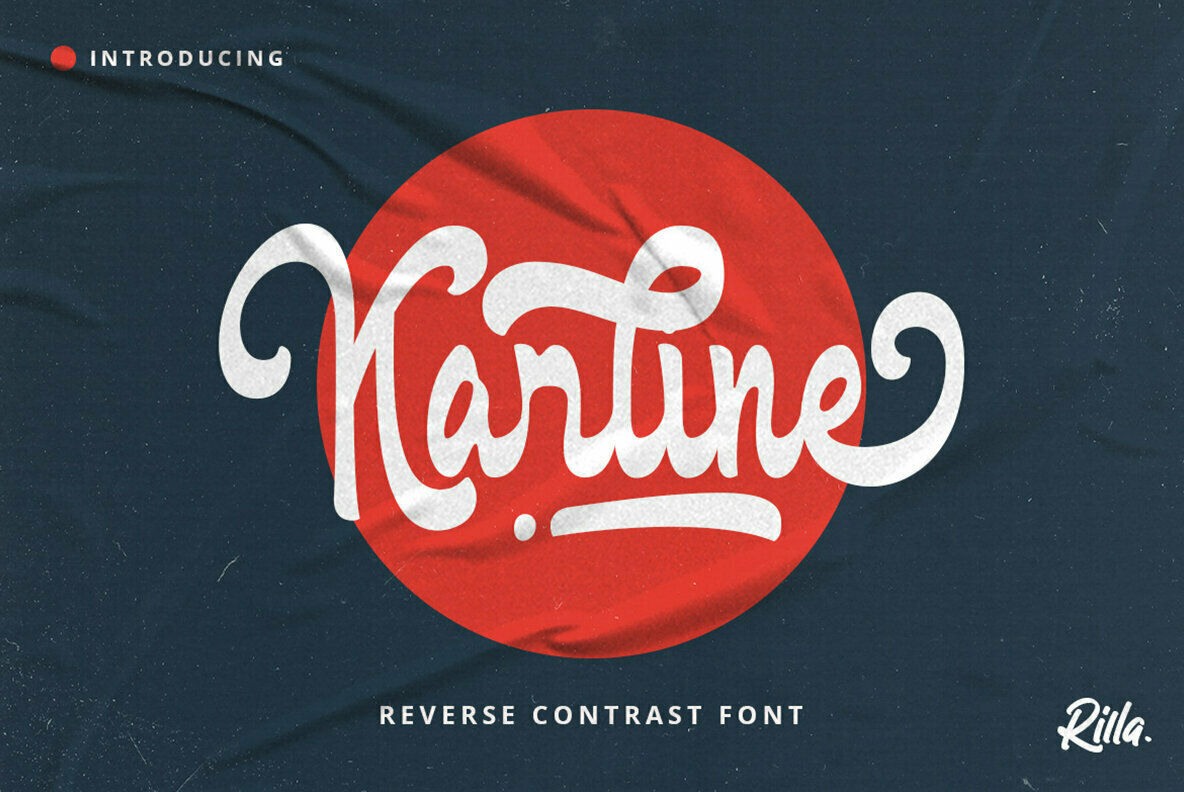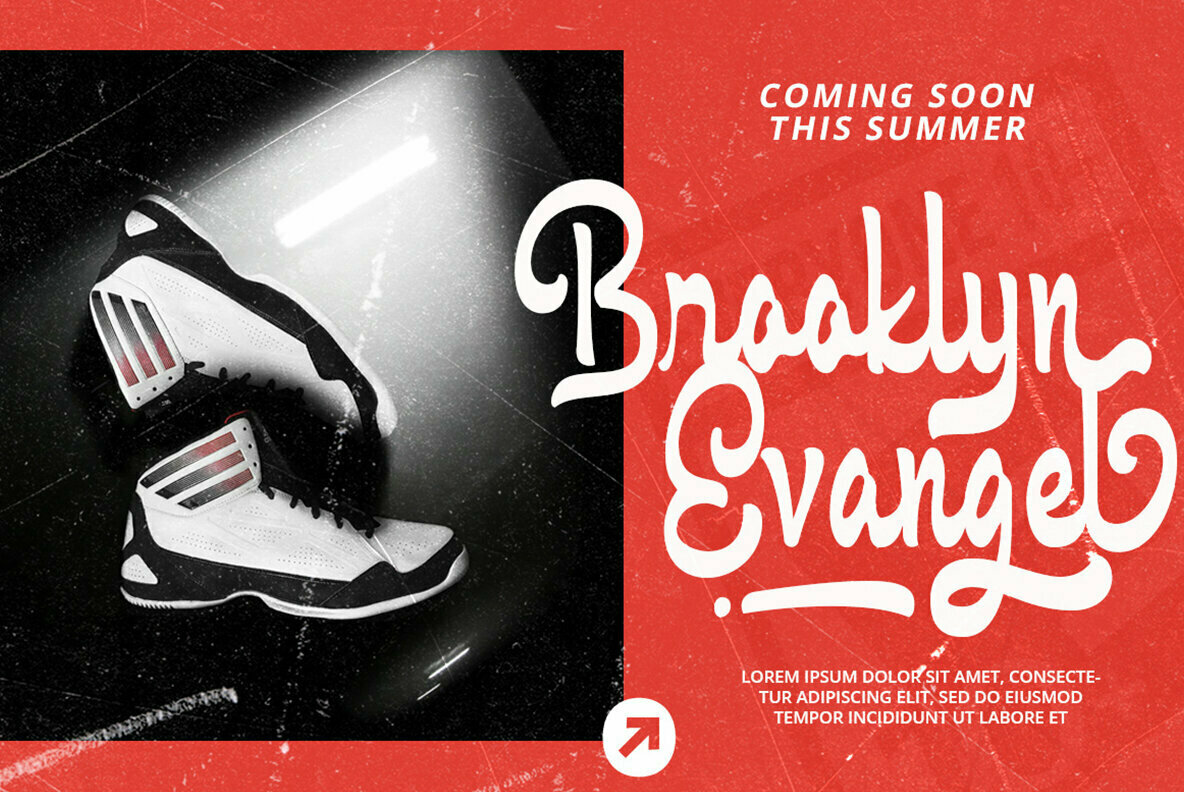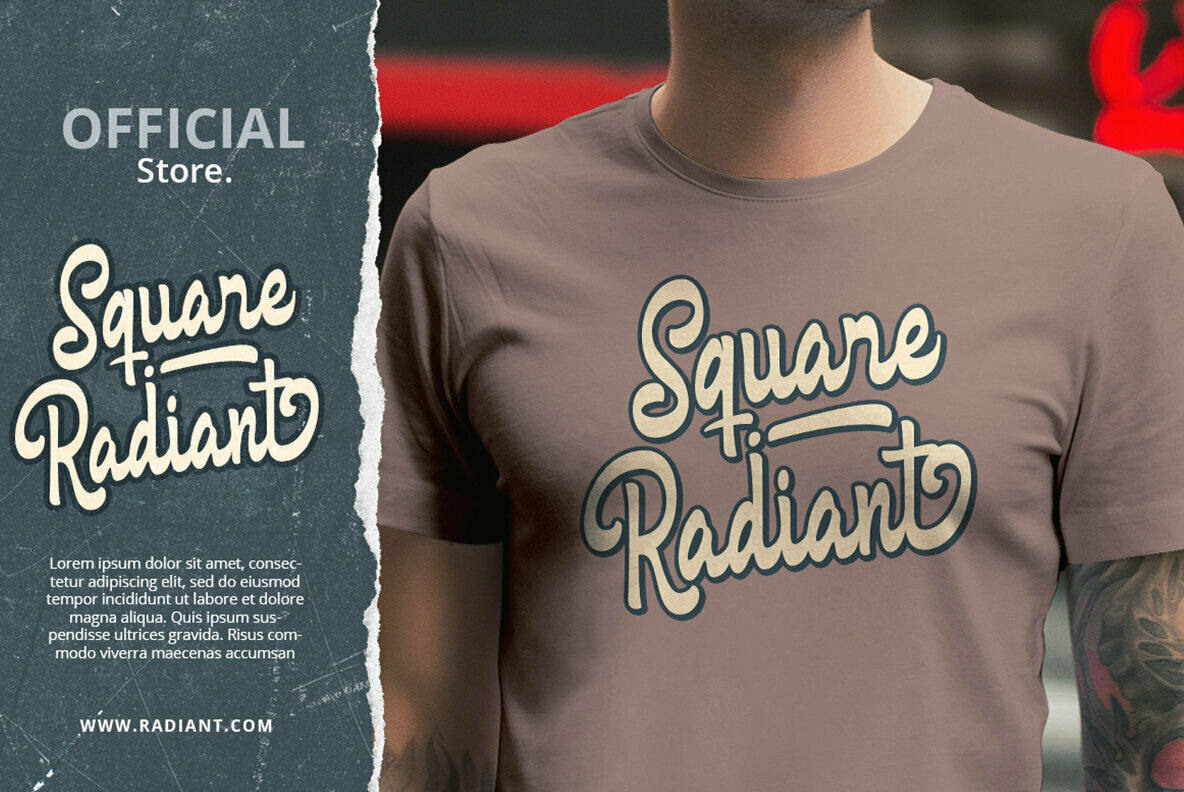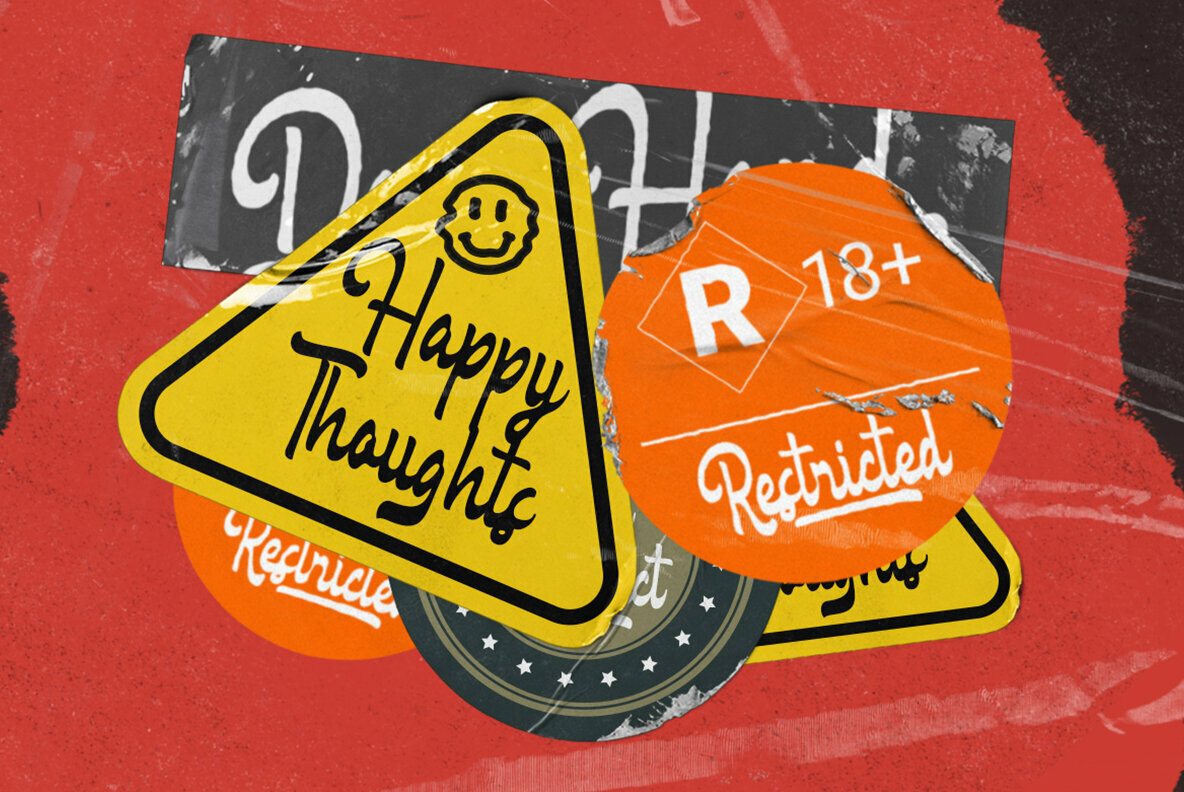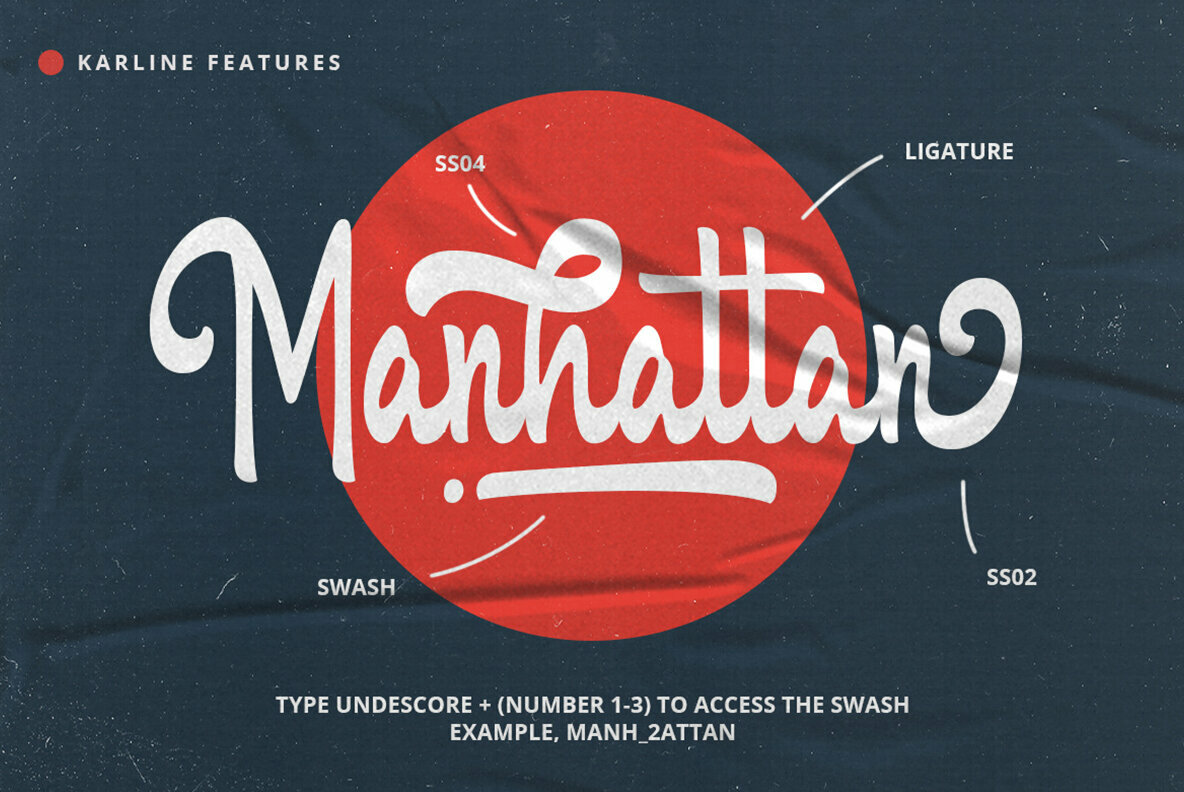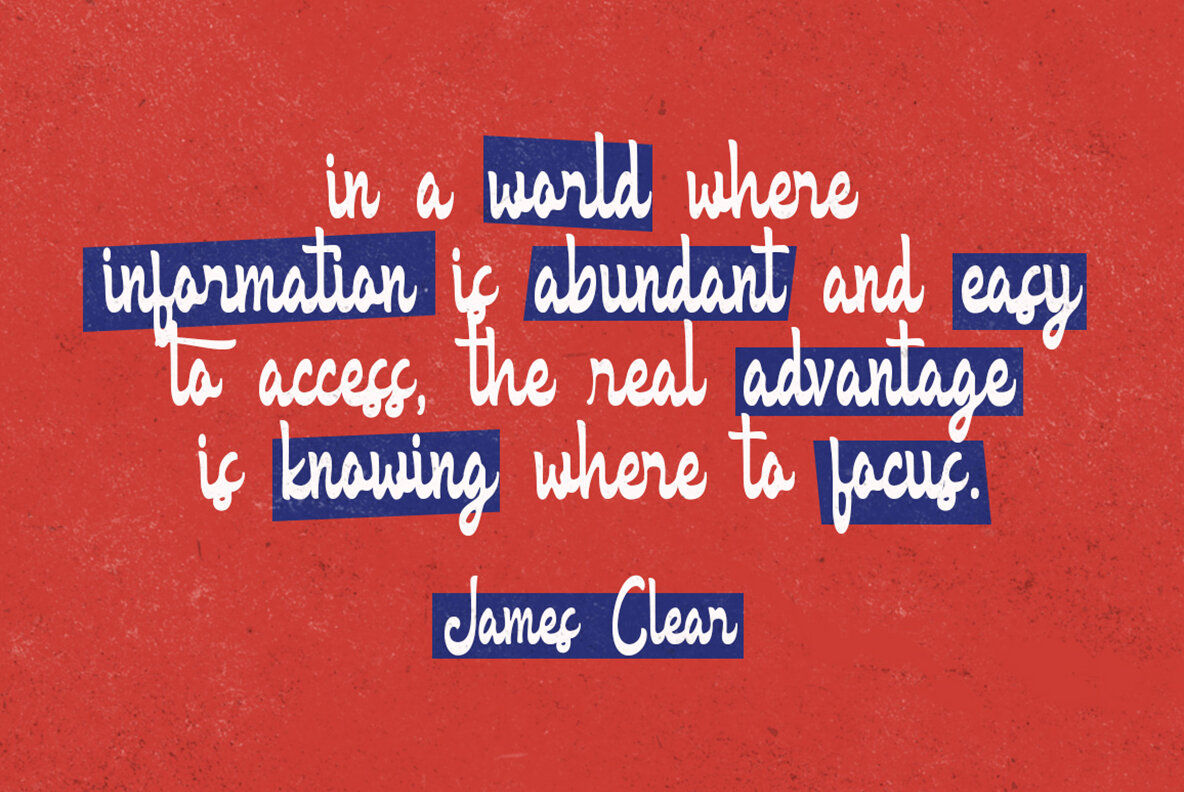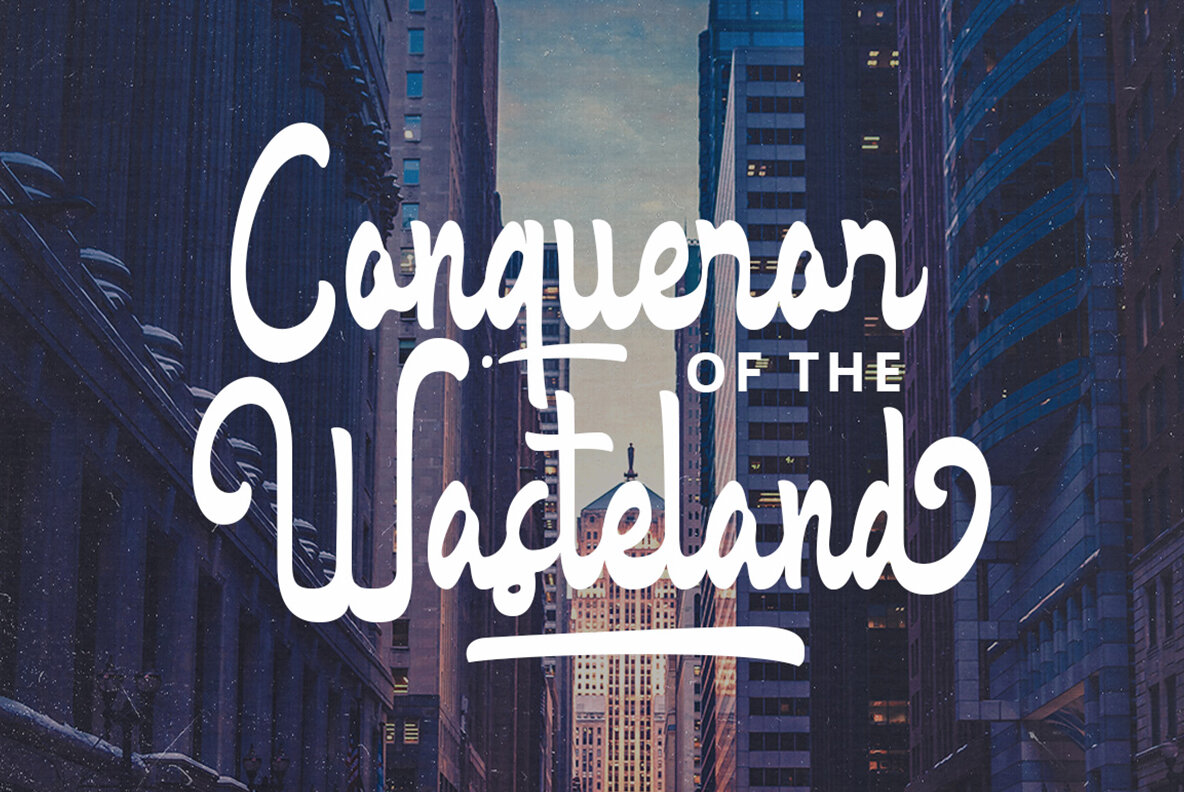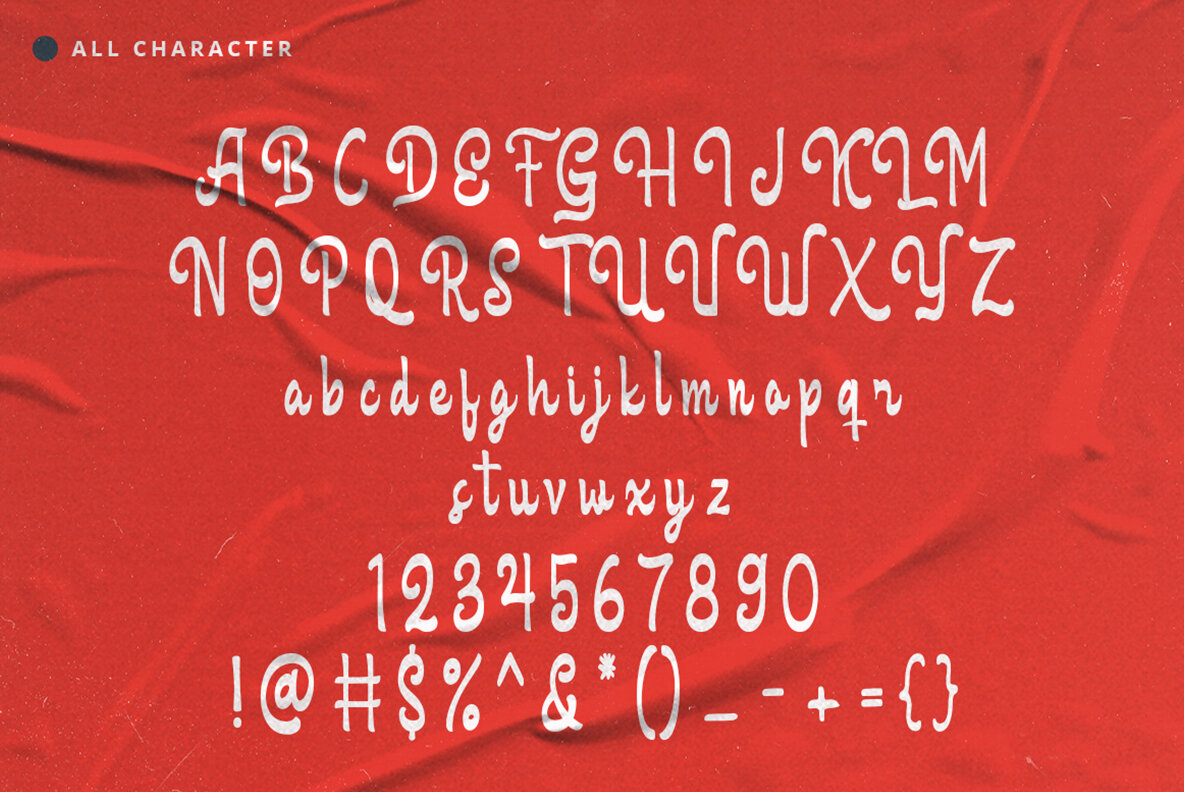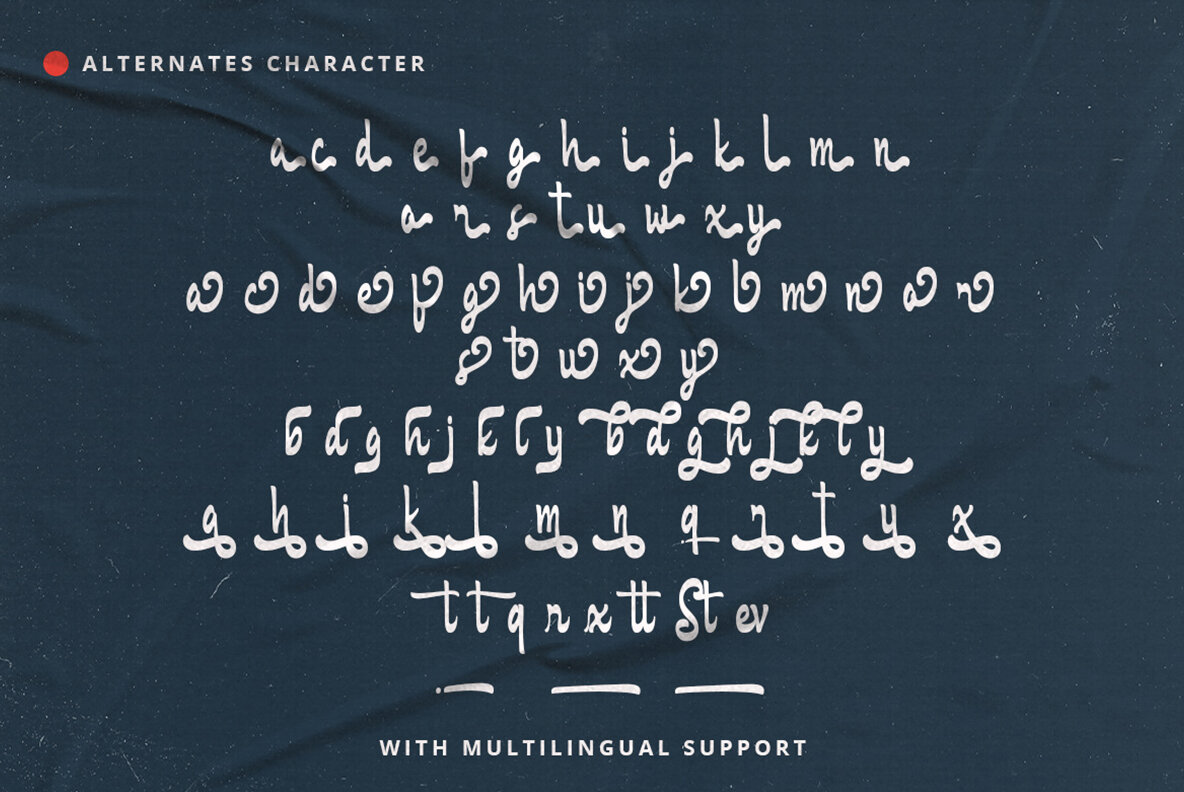
Karline Font
Karline
Karline offers a unique twist on traditional typography with its reversed contrast design, making it an ideal choice for creative professionals aiming for originality in projects. This font shines across various applications, from branding and packaging to headlines and apparel graphics, providing a bold statement that captures attention.Karline: Distinctive Reversed Contrast for Versatile Design